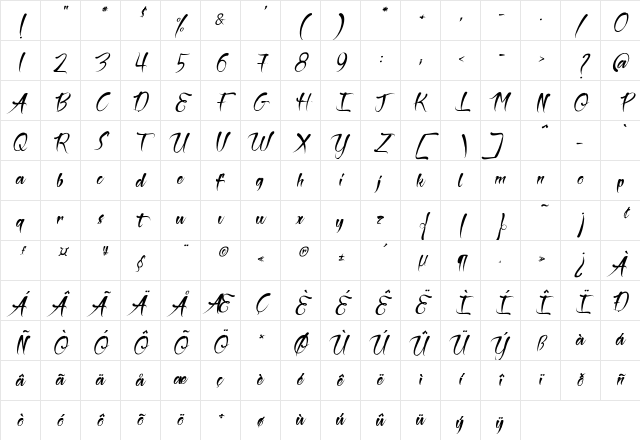
The Black Pearl Semi-Italic Free Font
The Black Pearl Semi-Italic
Foundry: Cataleya Butcher
Designer: Cataleya Butcher
Design Context for The Black Pearl
The Black Pearl is a composed and adaptable typeface that performs quietly and consistently across a wide range of design contexts. The slanted form adds forward momentum and visual energy.
Pro Tip: Use The Black Pearl for emphasis, pull quotes, and subheadings where its slanted energy can add rhythm to the layout.